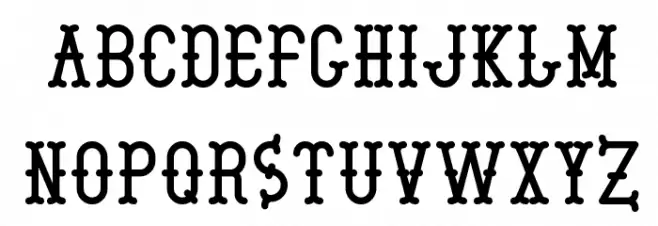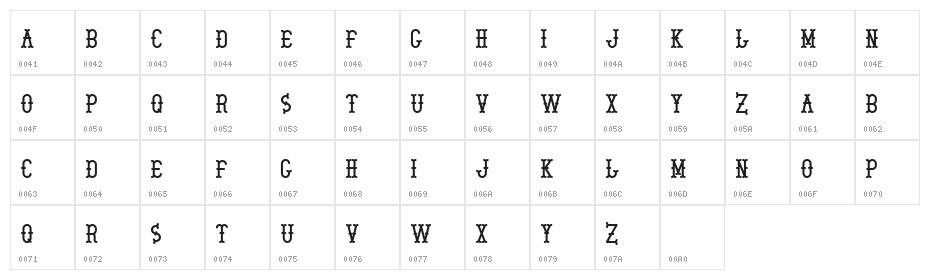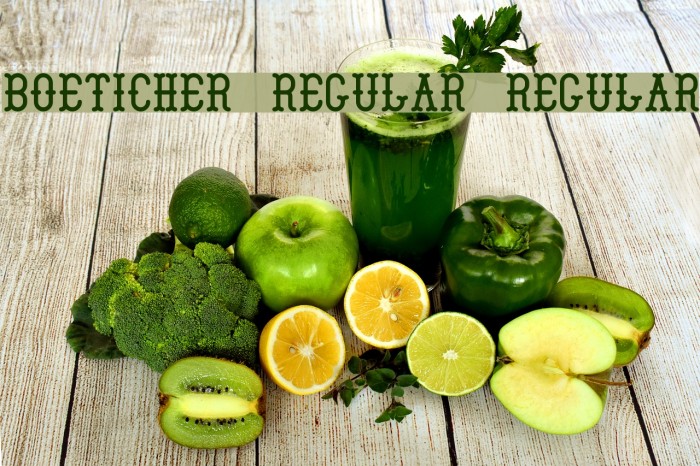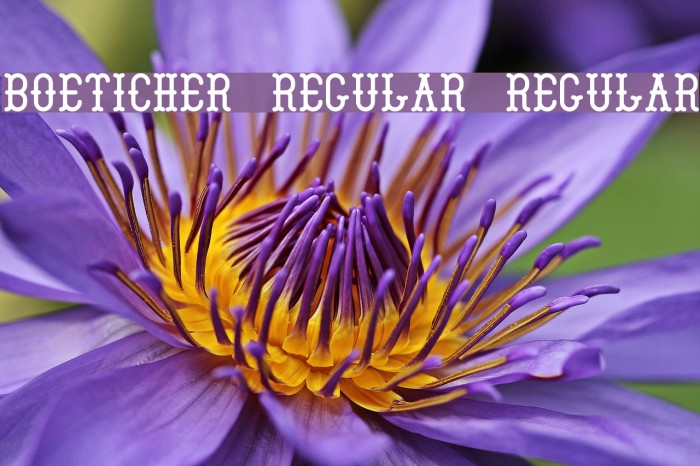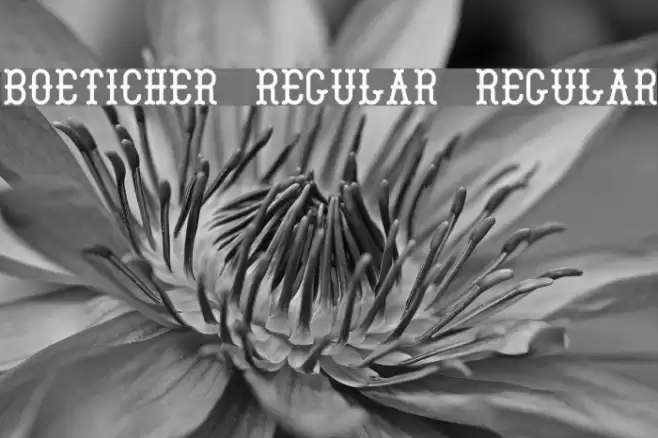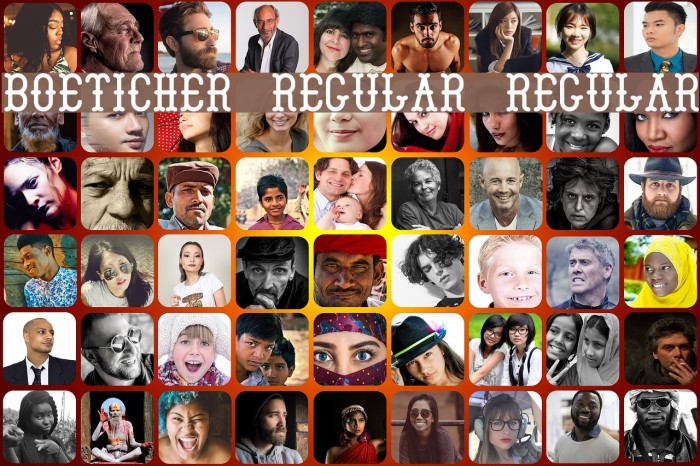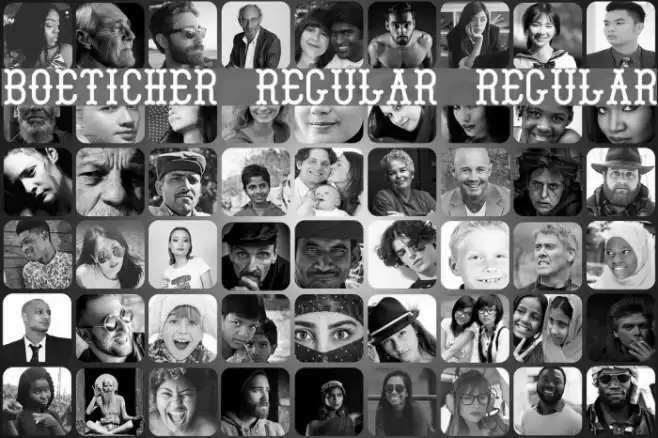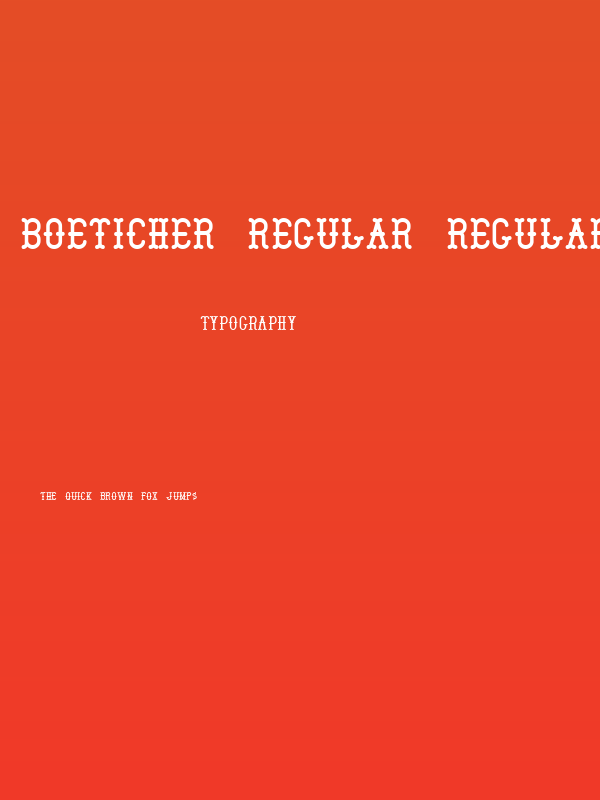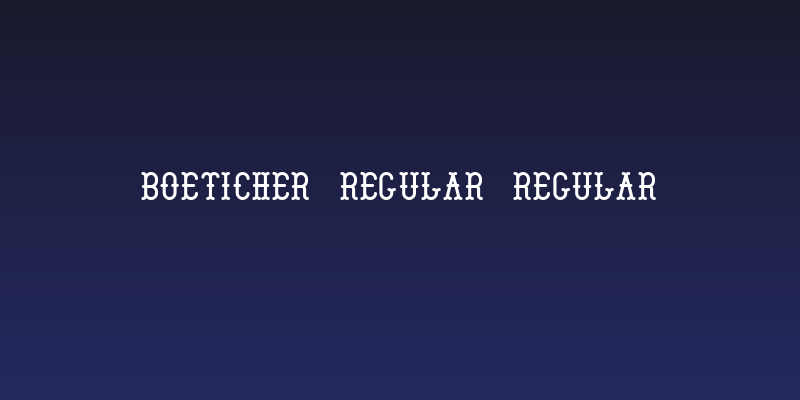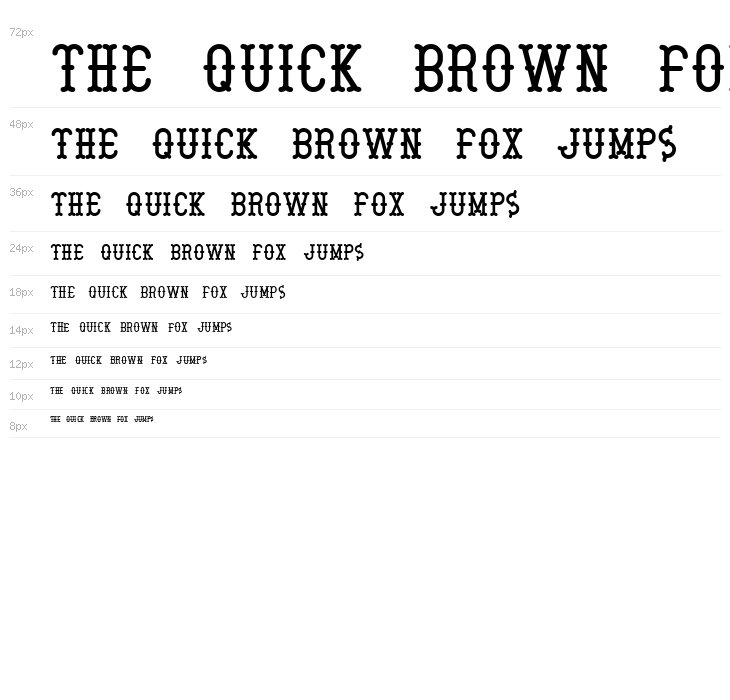
Boeticher Regular Font
Boeticher Regular Description
This font features a distinctive decorative style with bold, rounded serifs and a playful, vintage aesthetic. The characters are evenly spaced, with a consistent weight that gives them a strong presence. The uppercase letters are particularly striking, with unique embellishments that add a touch of whimsy. The lowercase letters maintain the same boldness, ensuring readability while still offering a decorative flair. The numbers and special characters are designed to match the overall style, making them suitable for a variety of creative applications. This font is ideal for projects that require a bold, eye-catching typeface with a touch of nostalgia.